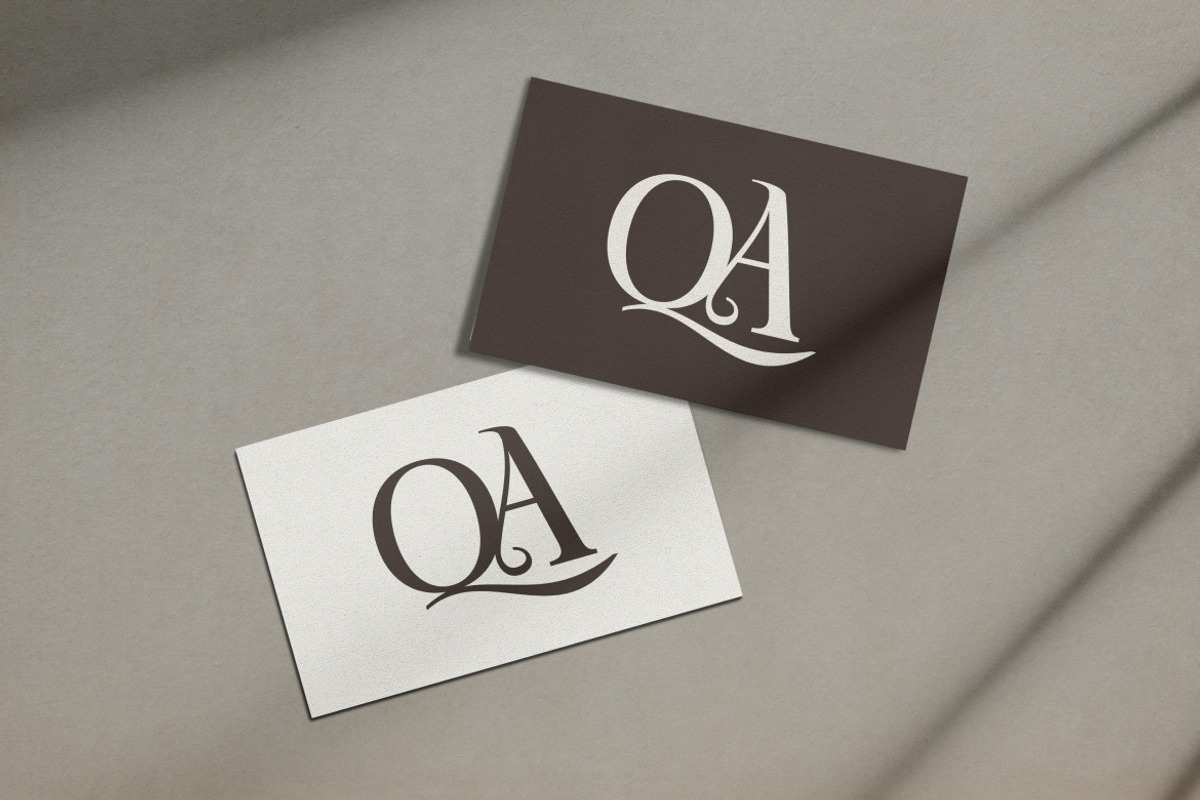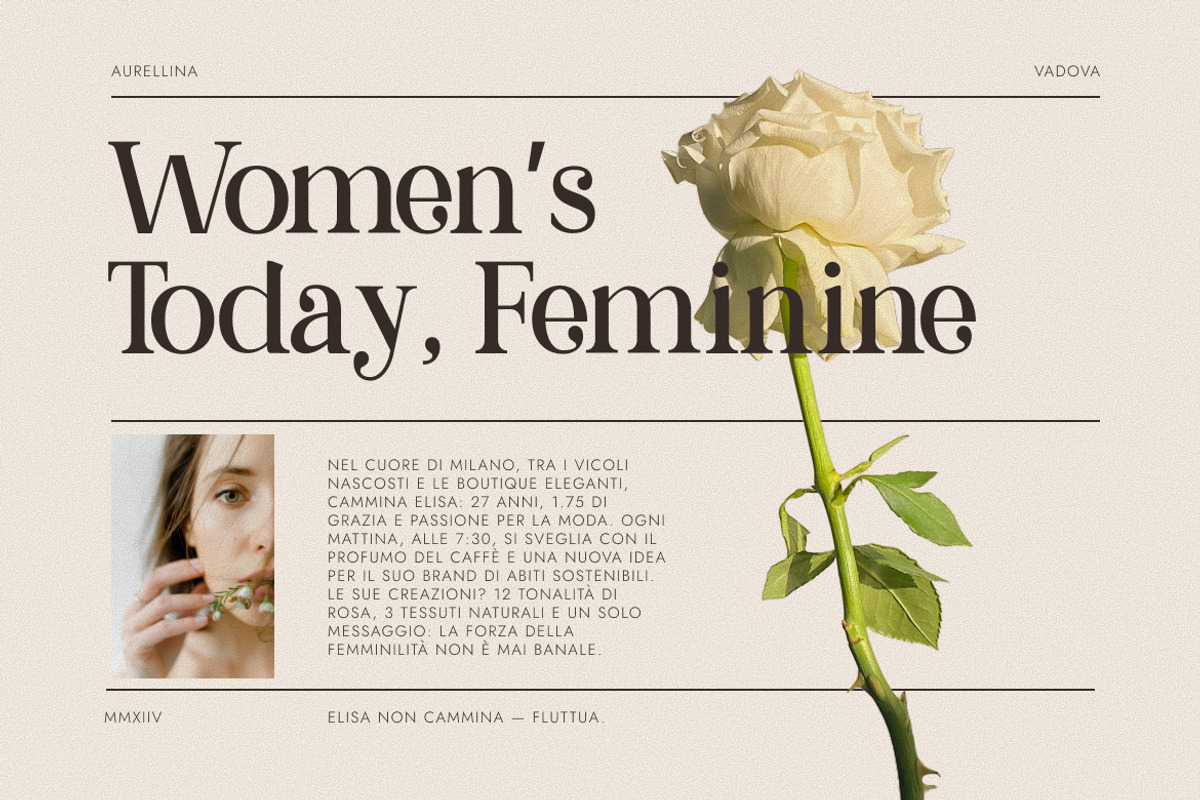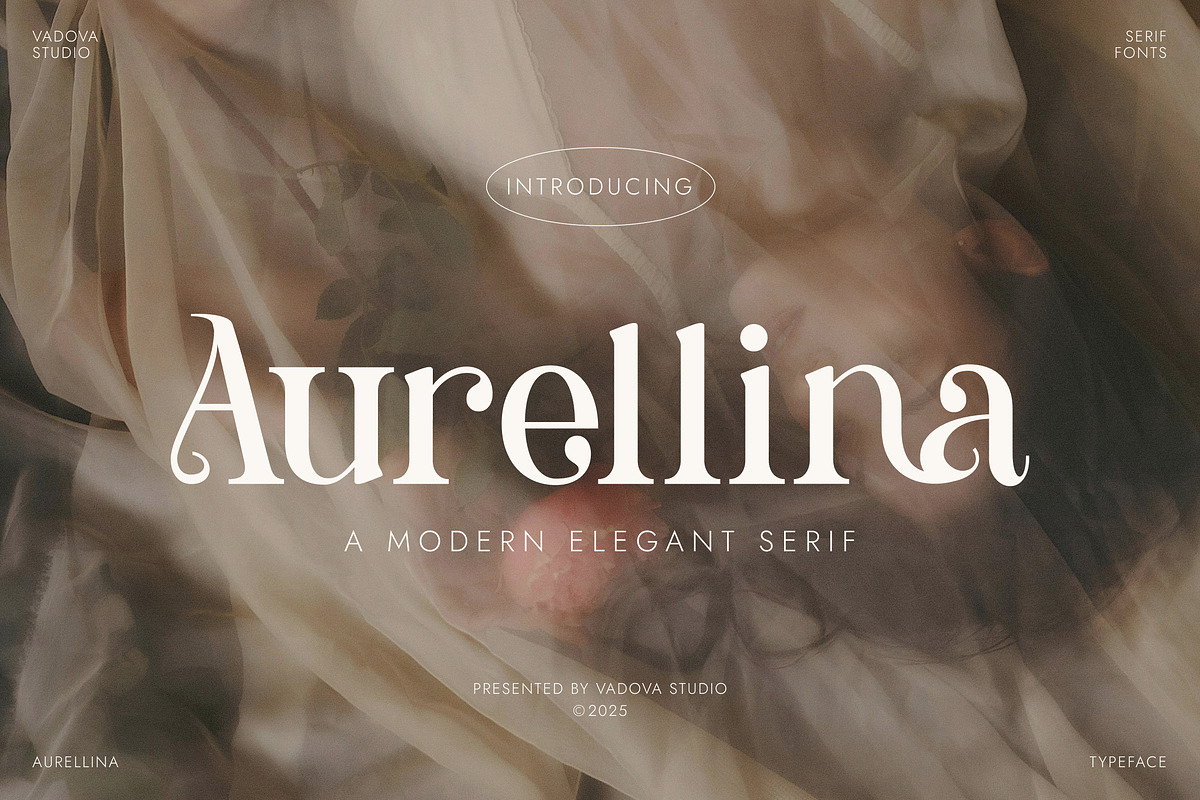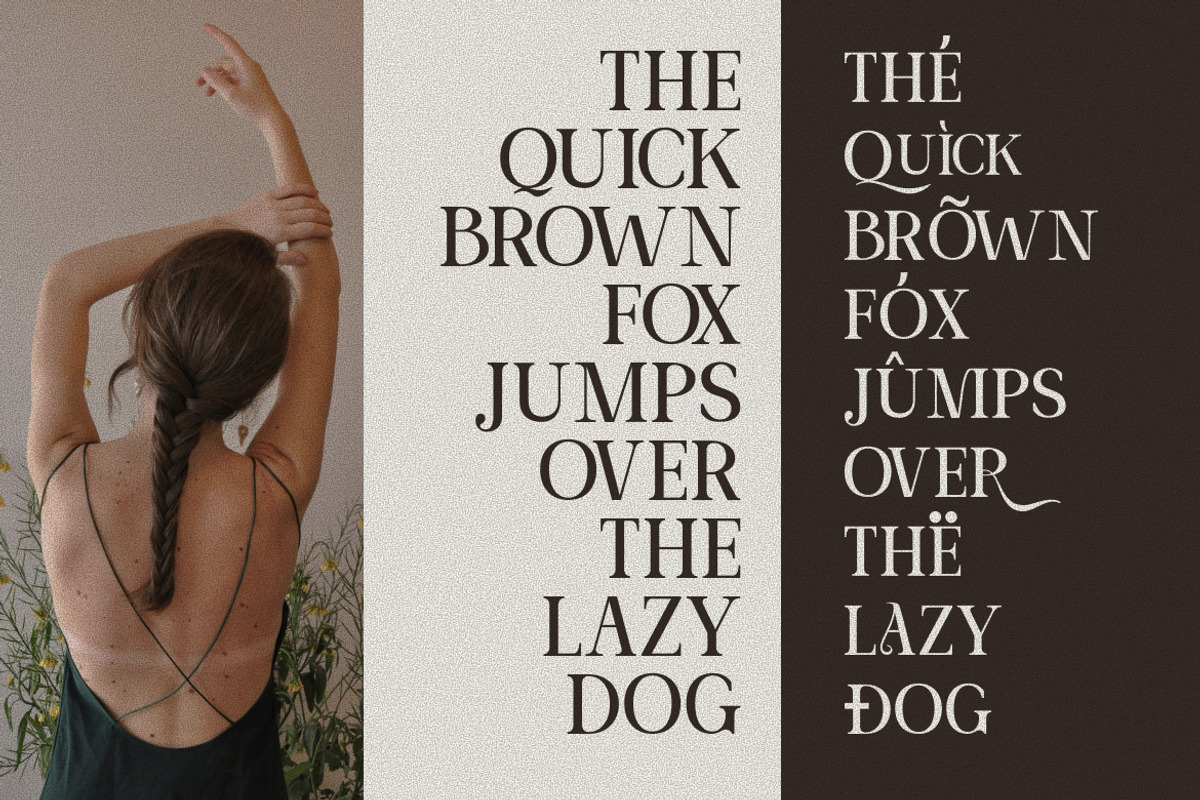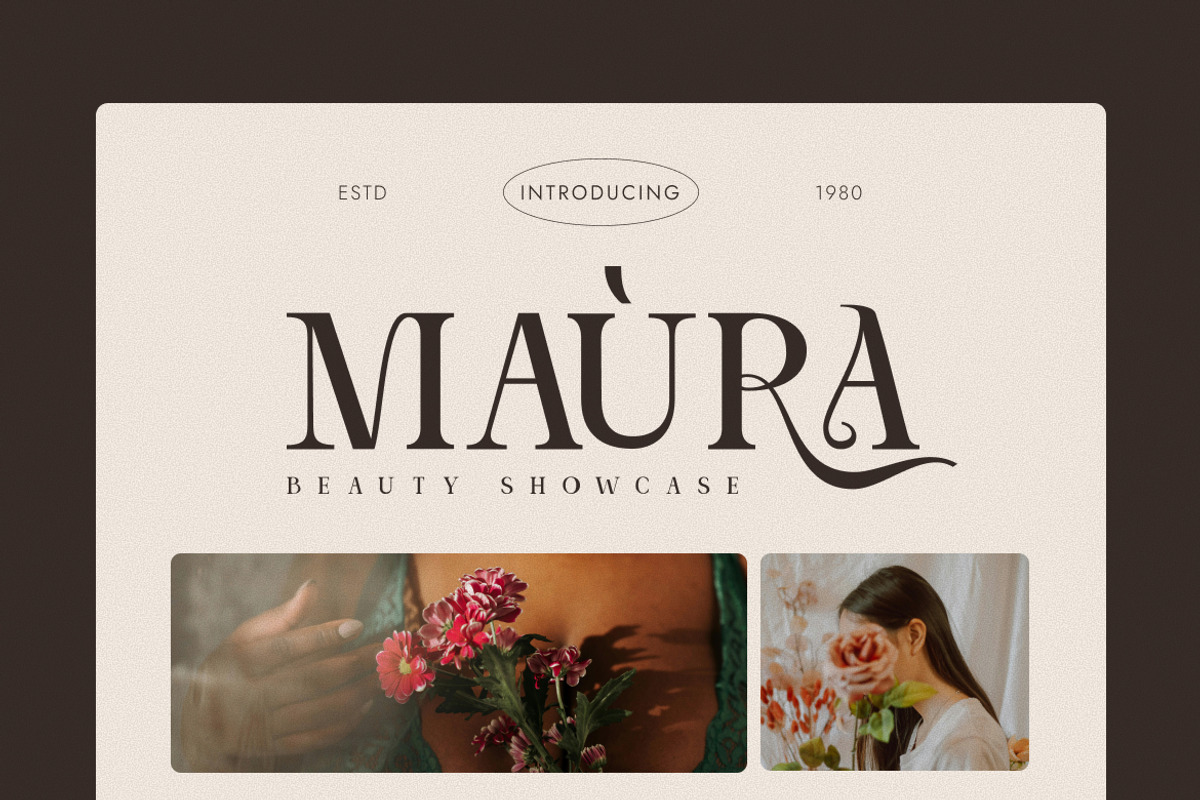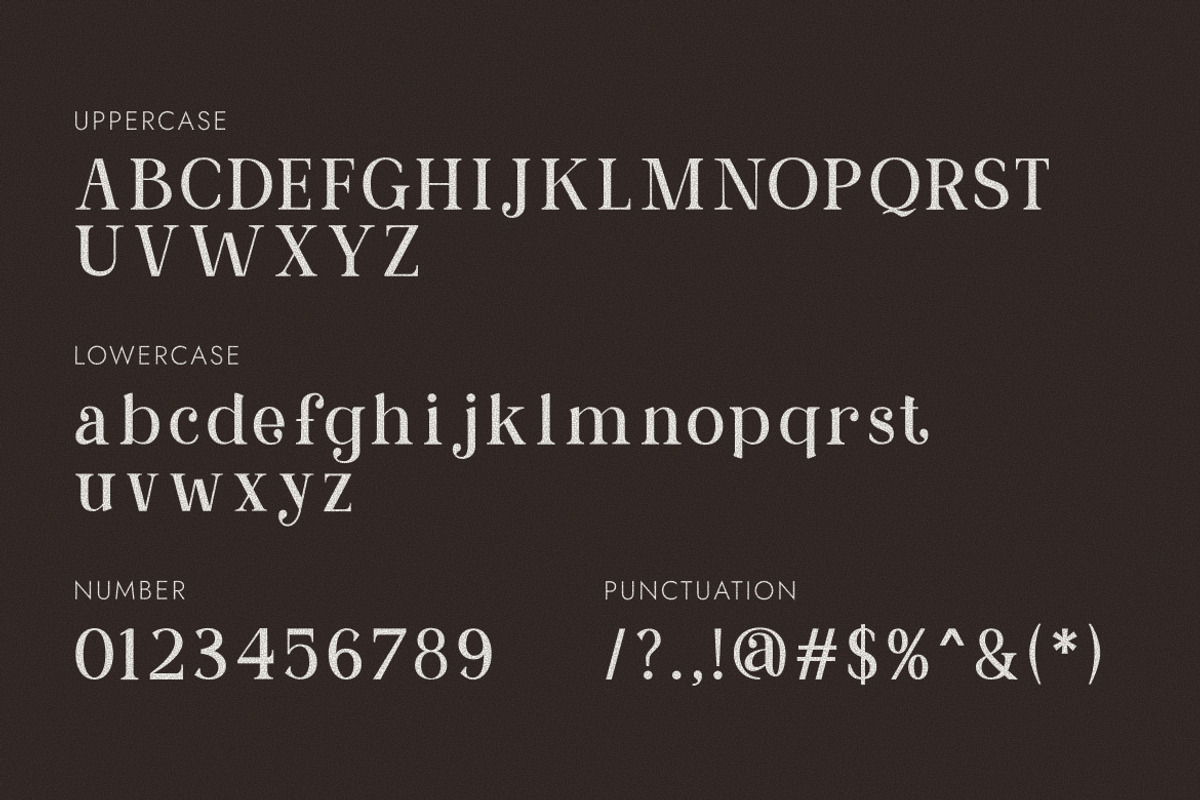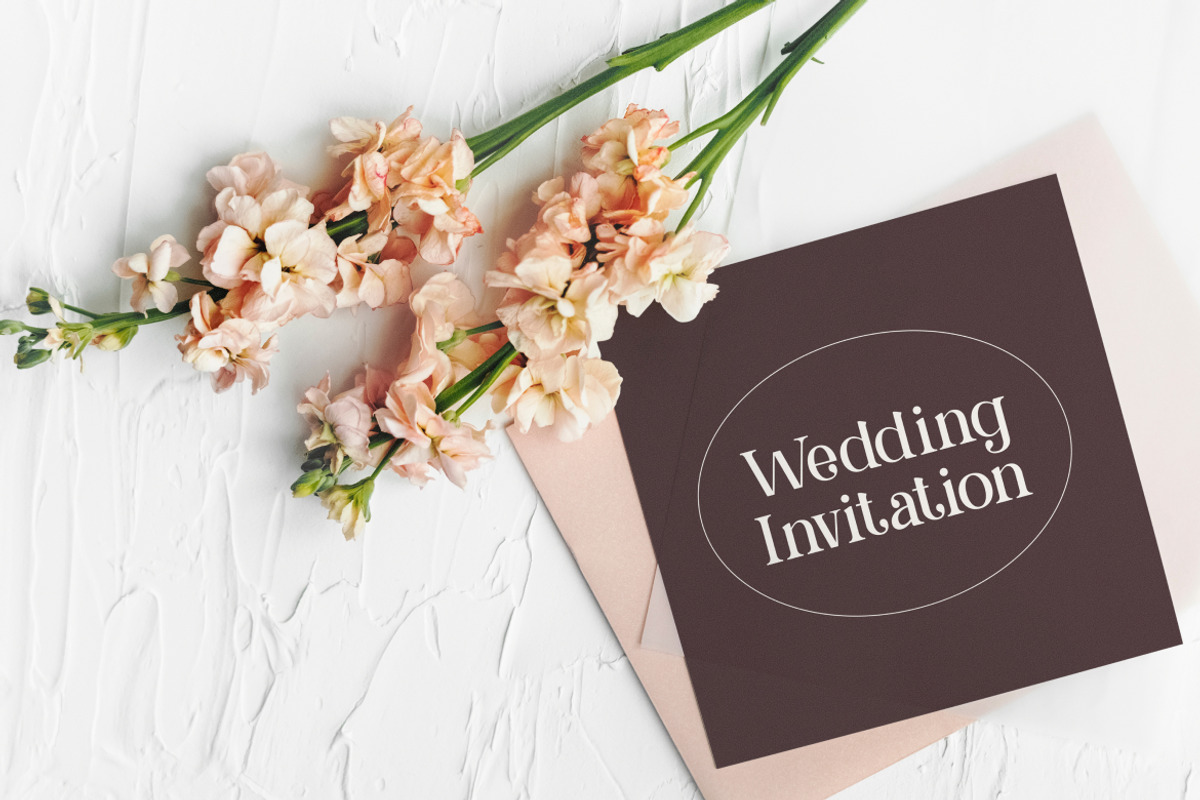
Aurellina Modern Elegant Serif
Aurellina is a refined and elegant modern serif typeface designed to elevate sophisticated creative projects with classic yet contemporary style. Its graceful letter shapes feature high contrast strokes, smooth curves, and subtly tapered serifs that evoke a sense of luxury and poise. Built with meticulous attention to detail, this typeface includes uppercase and lowercase letters, numerals, punctuation, and extensive multilingual support, making it versatile and functional for global design needs.
This font is ideal for a wide range of applications including branding and identity systems, editorial layouts, luxury packaging, high‑end product catalogs, wedding invitations, fashion magazines, lifestyle blogs, and premium advertising materials. Its timeless yet current design ensures that your work communicates both elegance and professionalism.
- Elegant high-contrast serif style with refined curves
- Stylish swashes and ligatures for decorative appeal
- Modern proportions with classic serif structure
- Smooth transitions and balanced spacing for readability
- Ideal for editorial, branding, and packaging design
- Luxury brand identity and high-end logo design
- Wedding invitations, event stationery, and greeting cards
- Editorial layouts for fashion, beauty, and lifestyle magazines
- Elegant product packaging and boutique label designs
- Social media graphics and promotional materials
Aurellina blends elegance and readability for high-end, minimalist typography